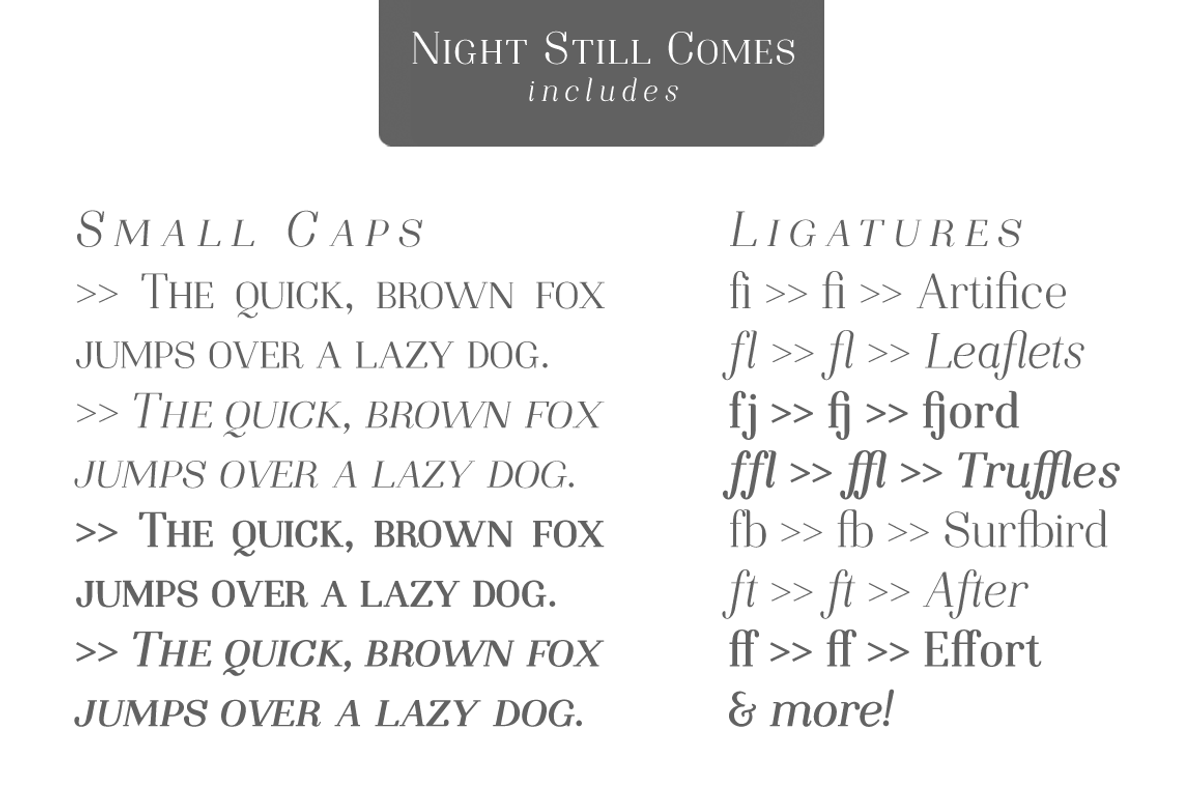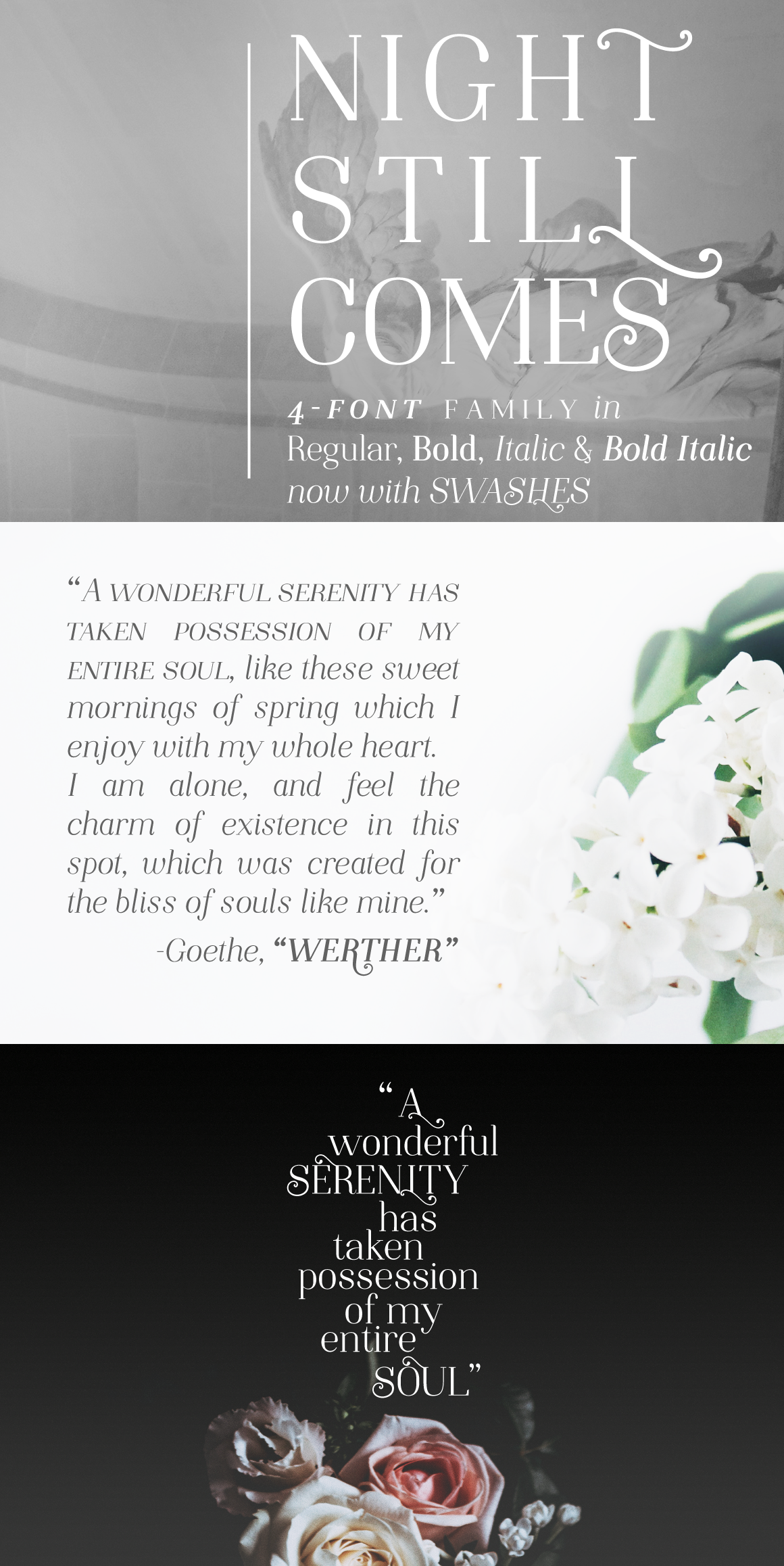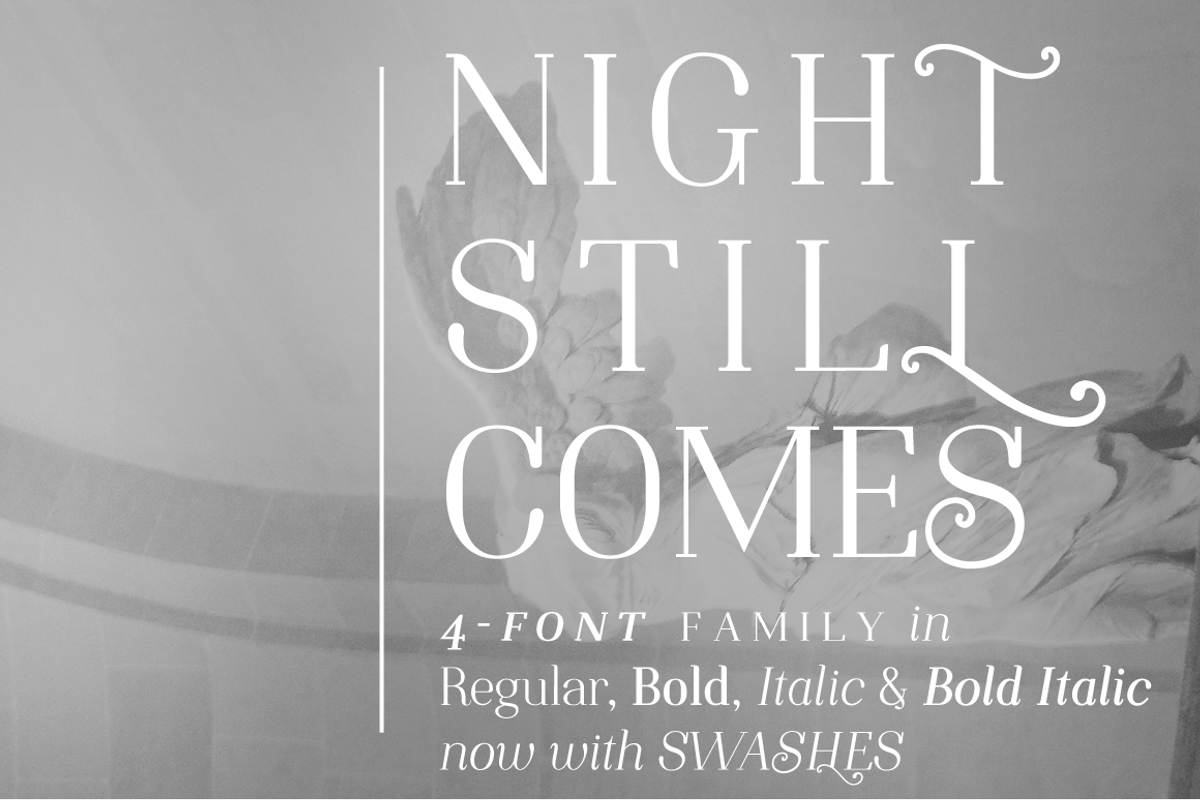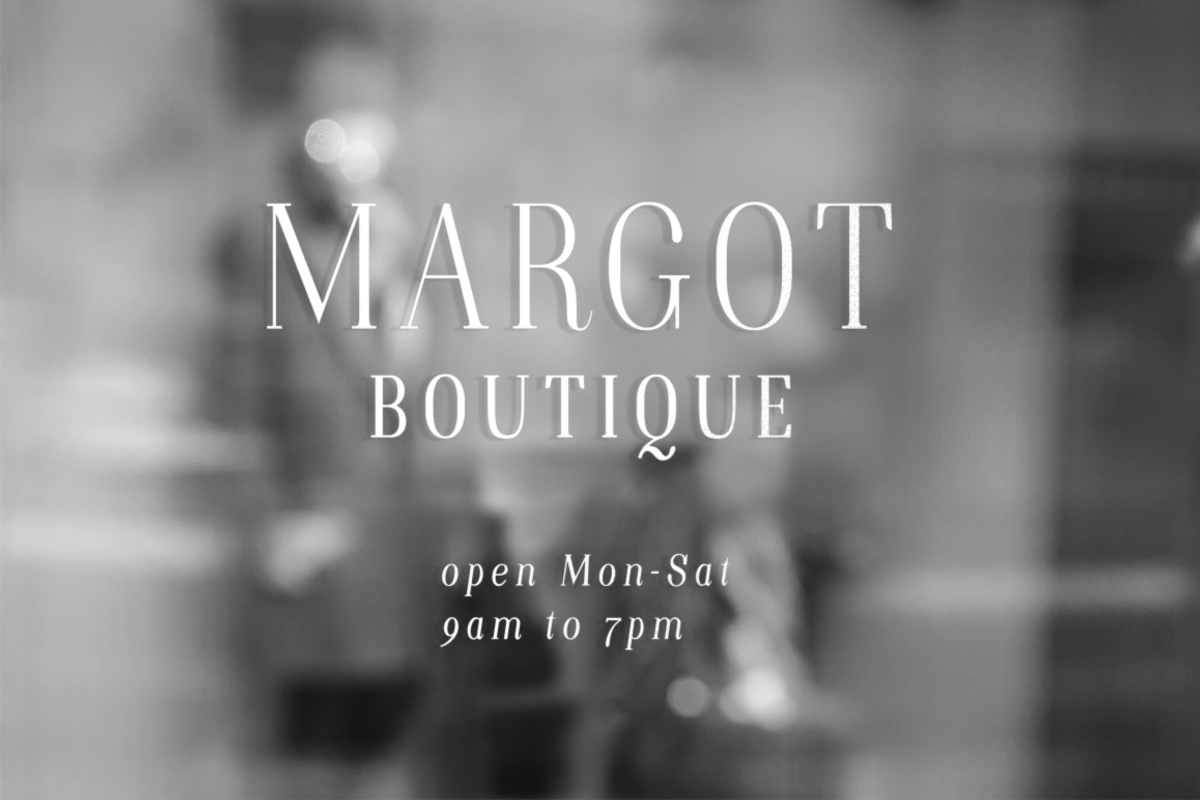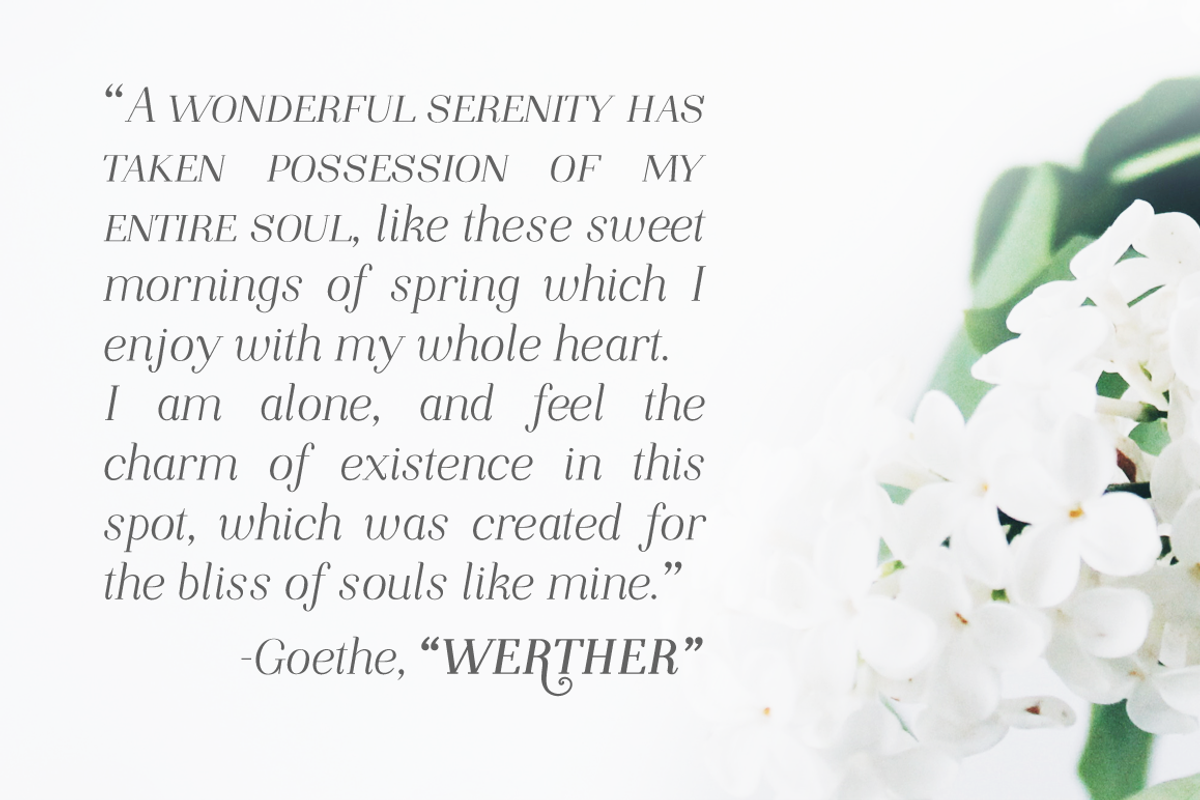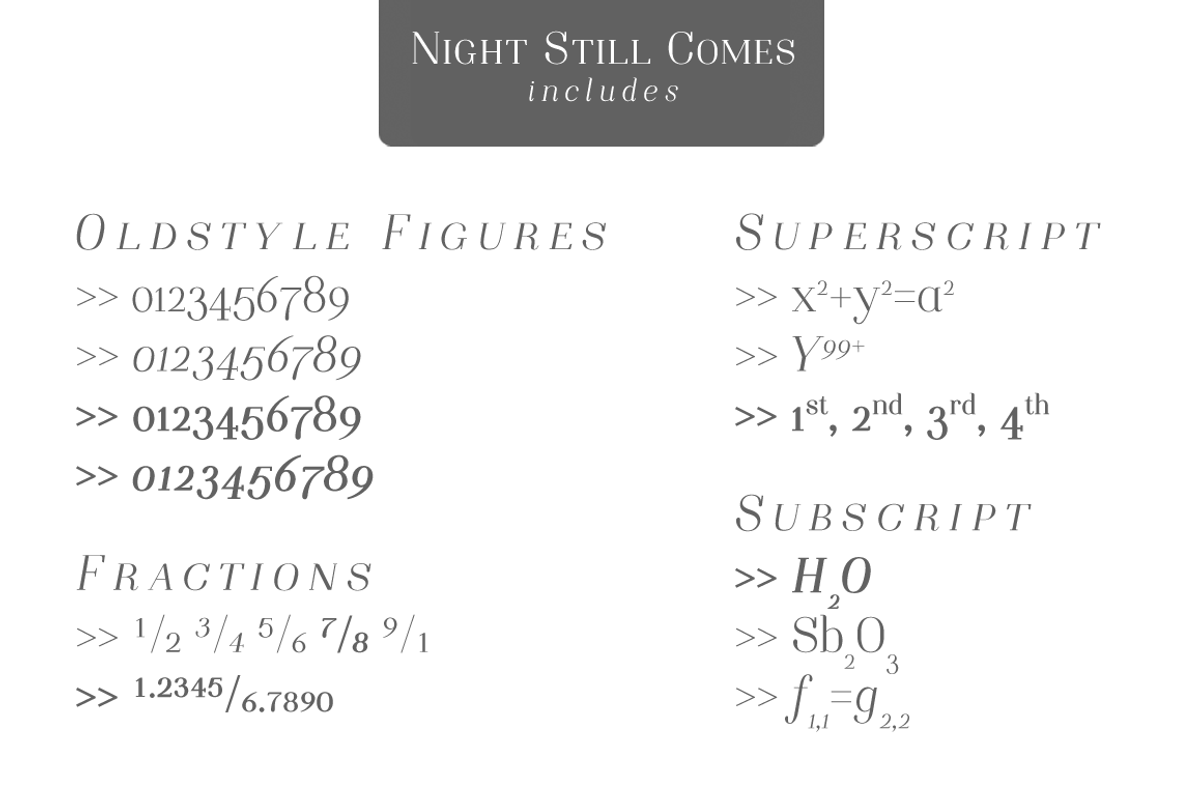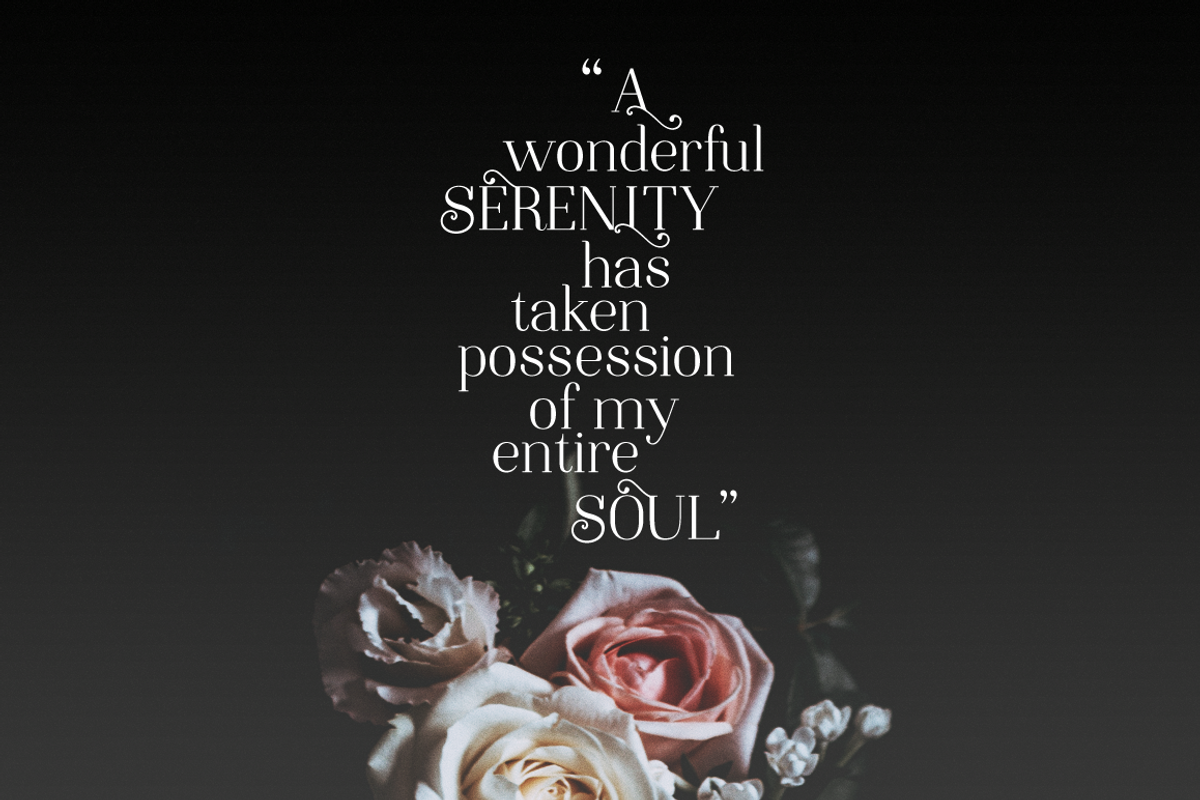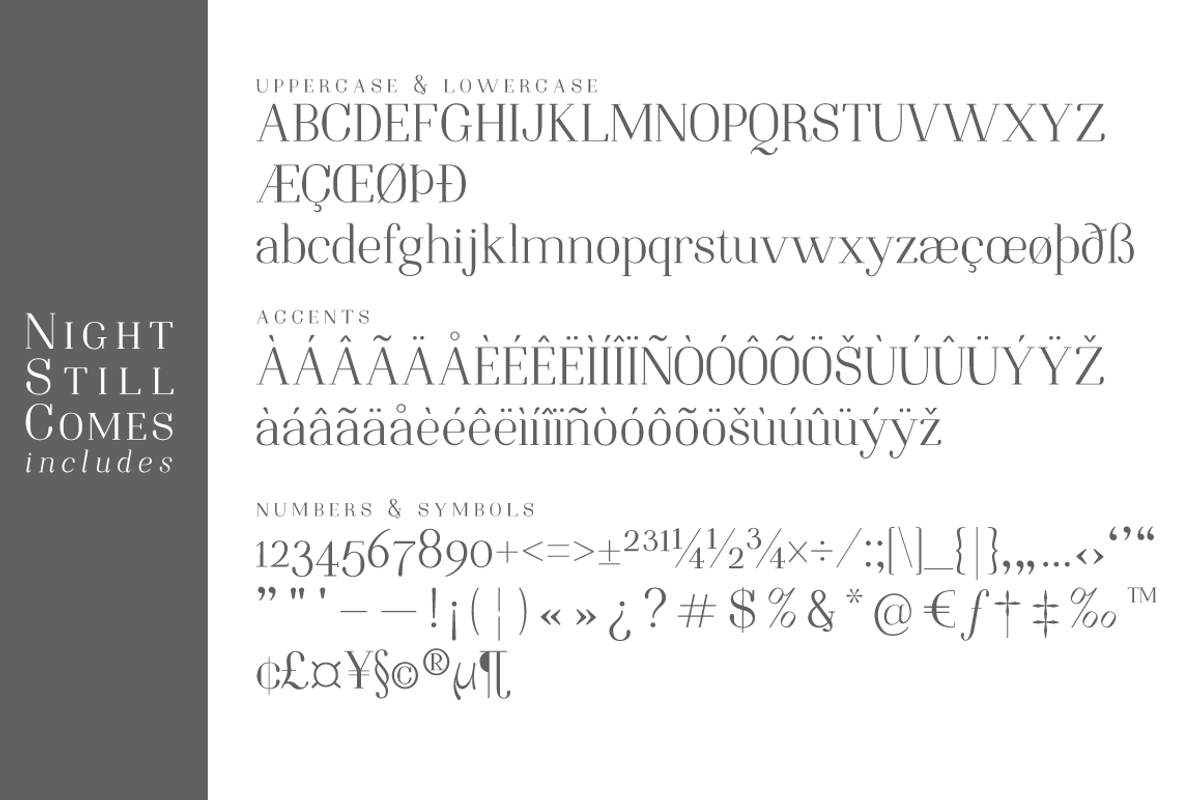
Night Still Comes serif font
Night Still Comes is a serif font in 2 styles: REGULAR & ITALIC and in 2 weights. With over 550 glyphs for each font, including:
- A-Z | a-z | 0-9 | Punctuation marks | Accents
- Small caps
- Old style & lining numbers
- Superscript & subscript numbers and letters
- Fractions
- NEW! Swashes